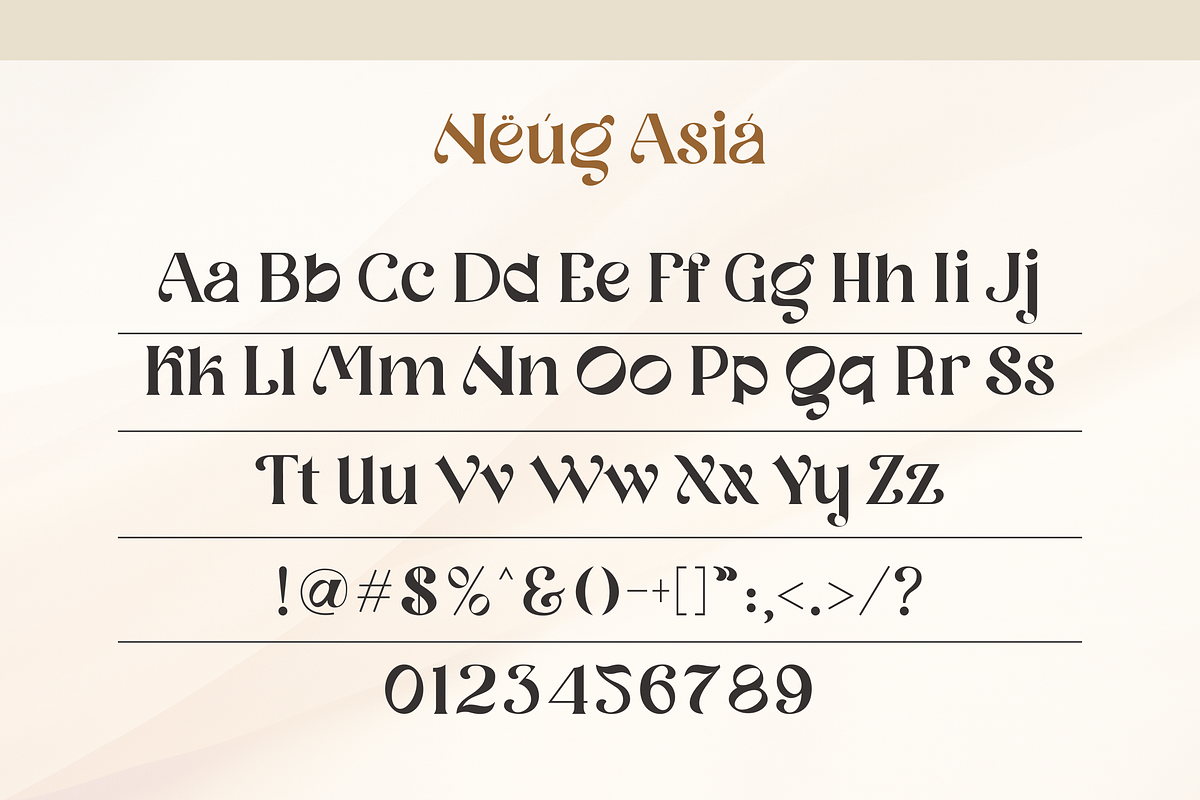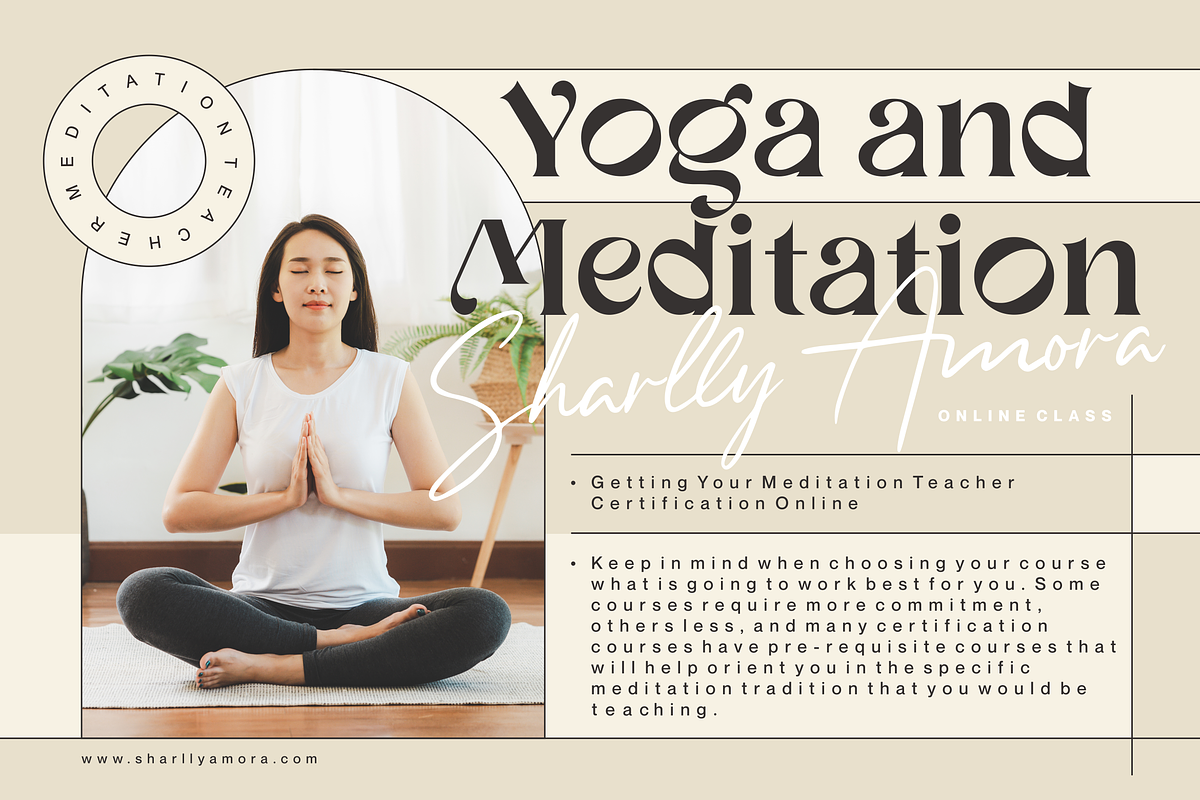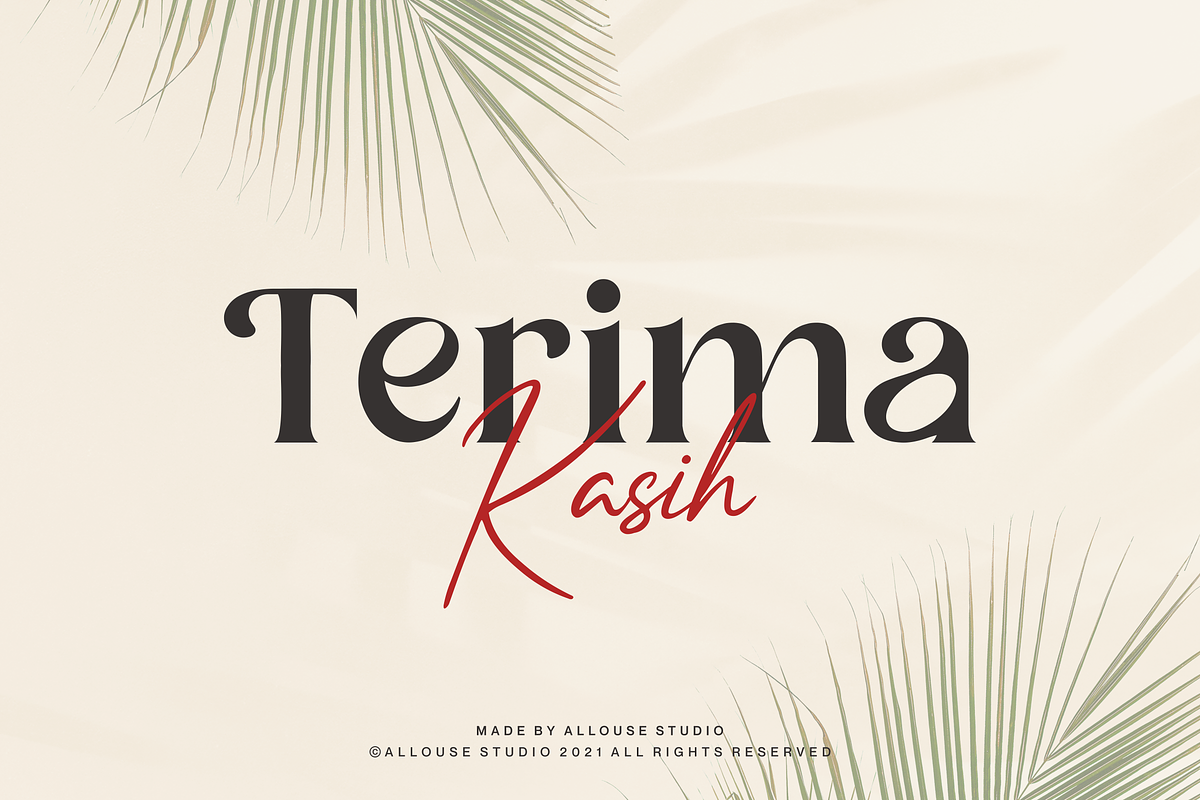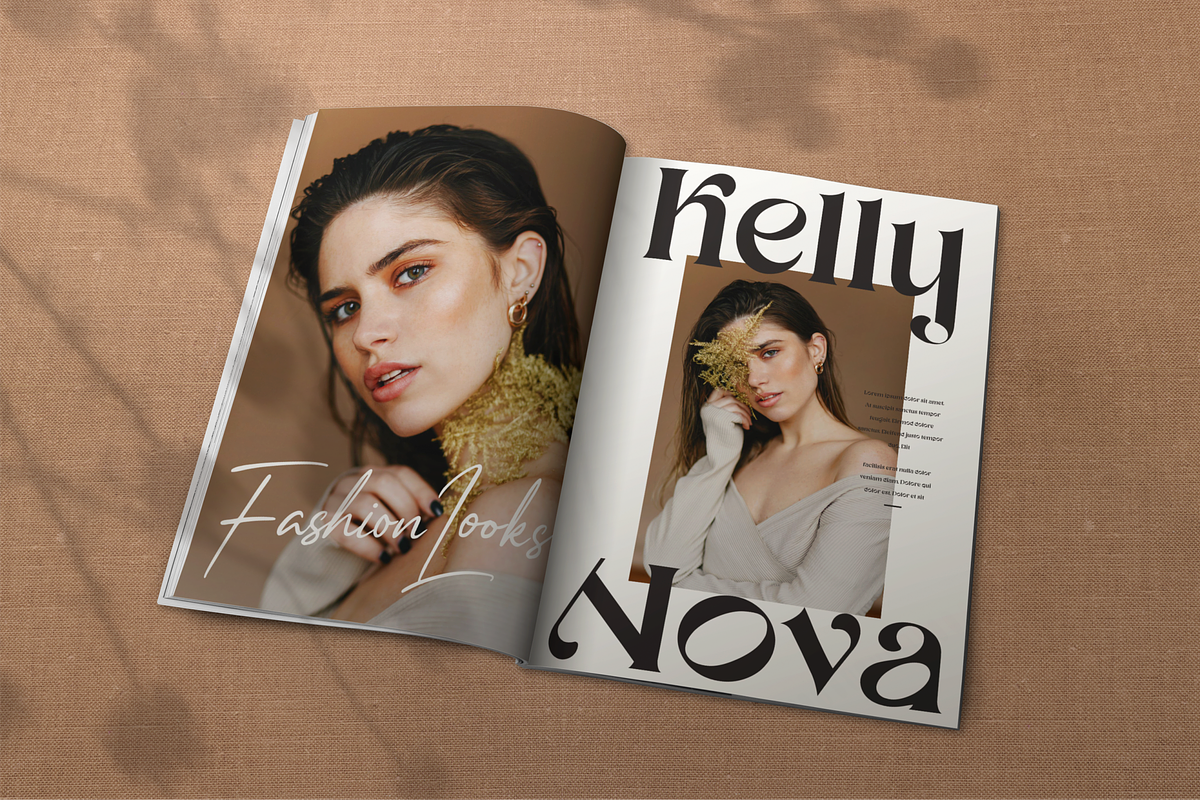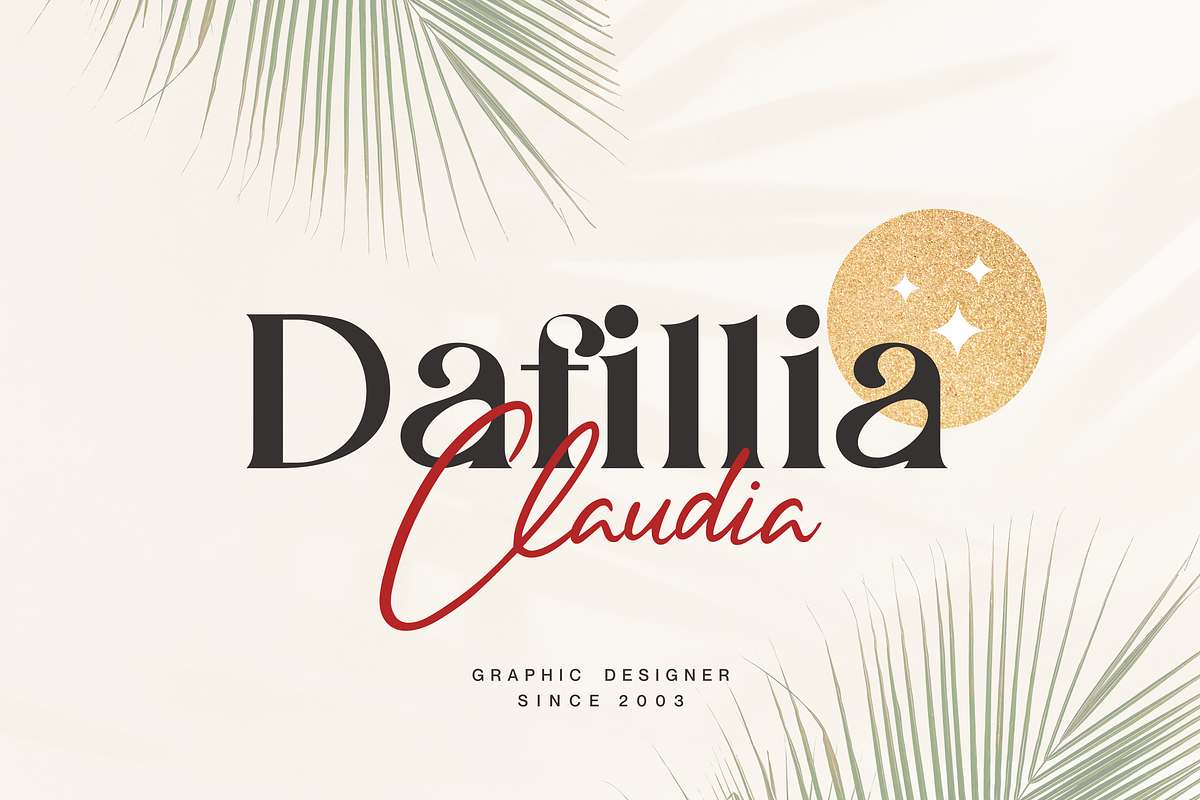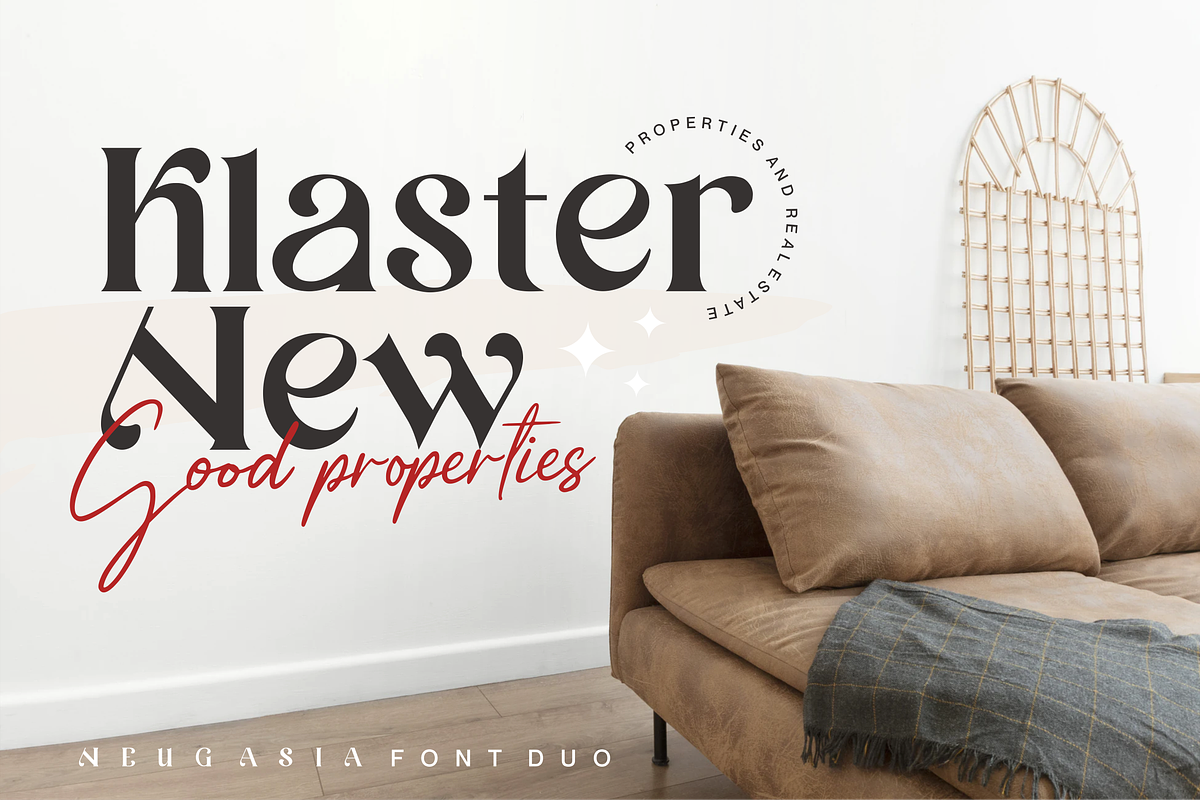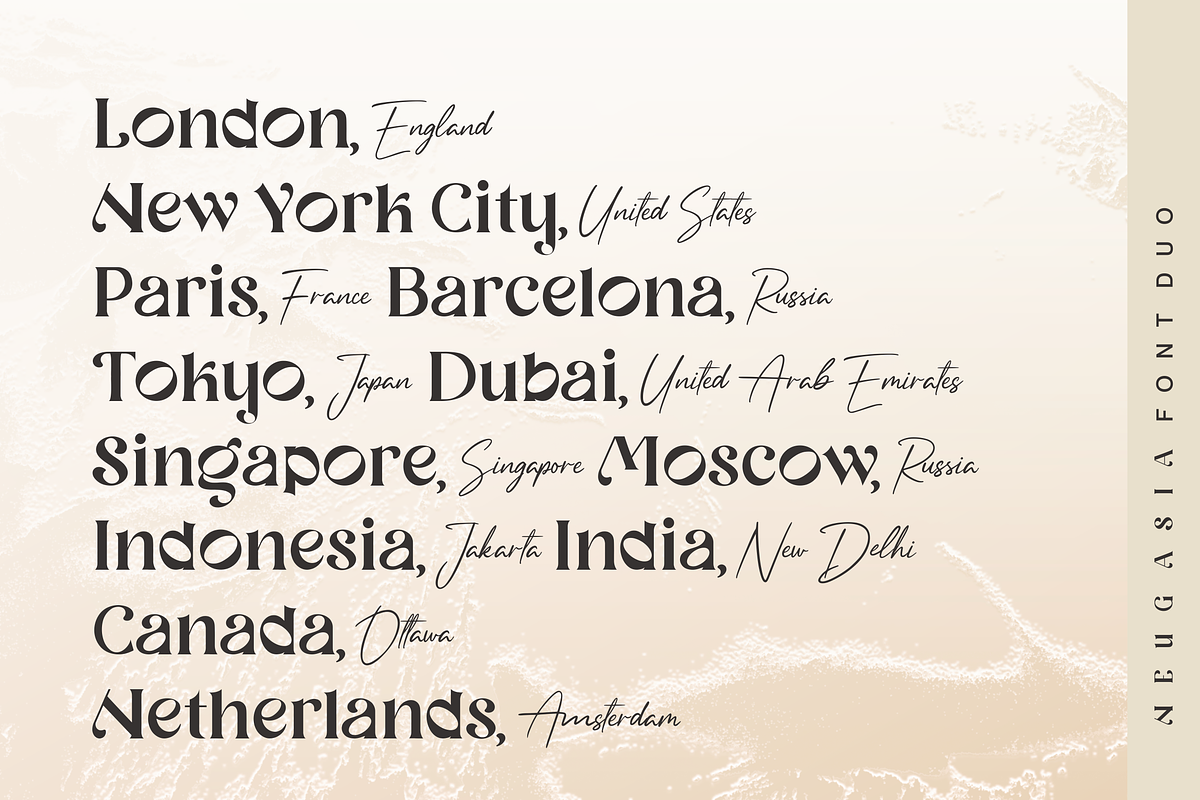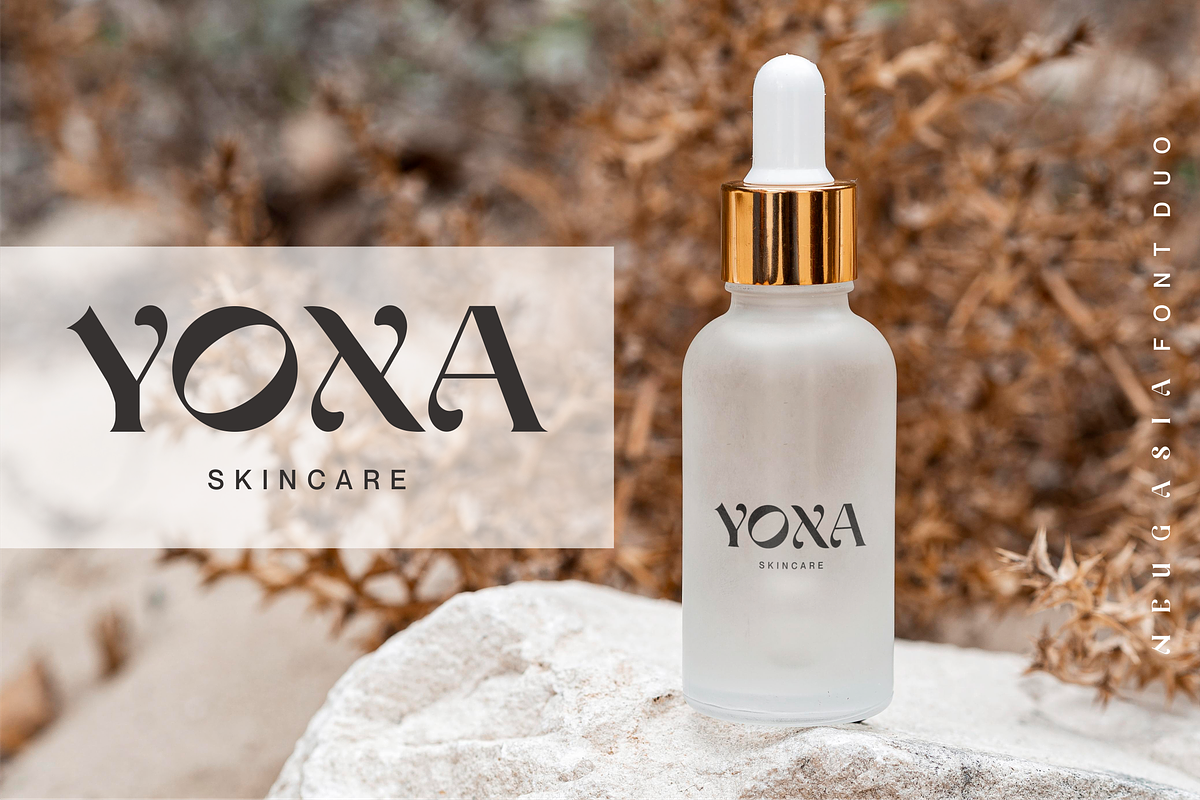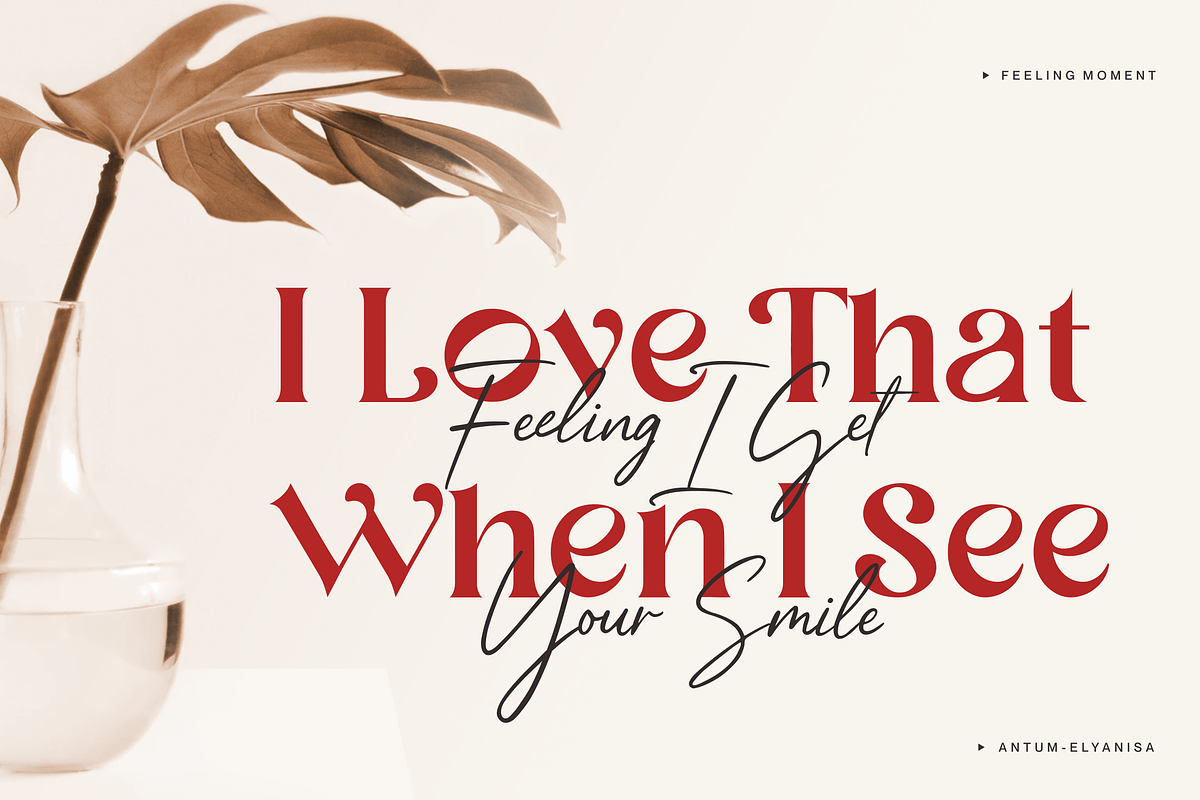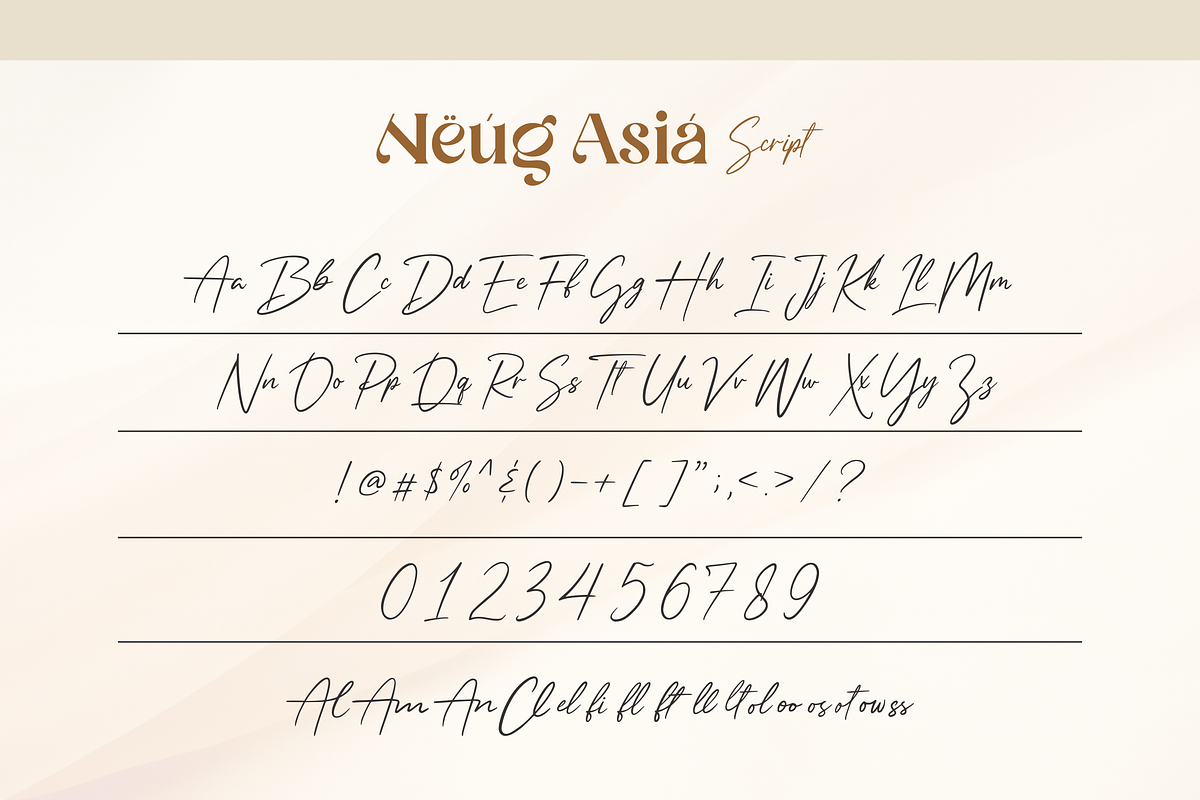
Neug Asia Font
Proudly Presenting, Neug Asia with Two Styles!
Neug Asia can be display for any titles, logo, product packaging, branding project, megazine, social media, wedding, or just used to express words above the background.
Neug Asia come with alternates and also Multi-Lingual Support.